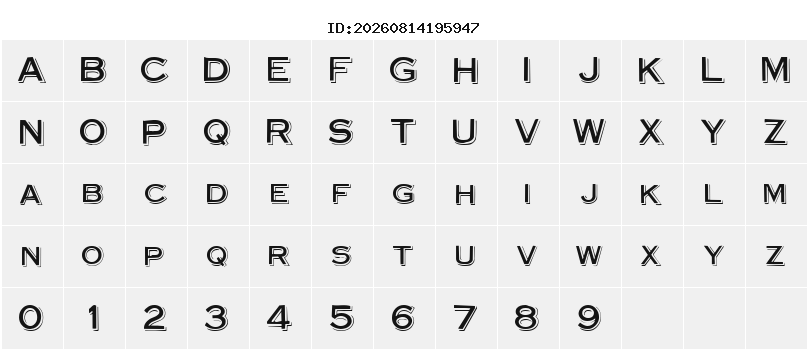
Steelplate Preview
About Steelplate.ttf
Steelplate.ttf is a modern, elegant sans-serif font designed for ultimate readability and visual harmony. Perfect for branding, headlines, web design, and print materials.